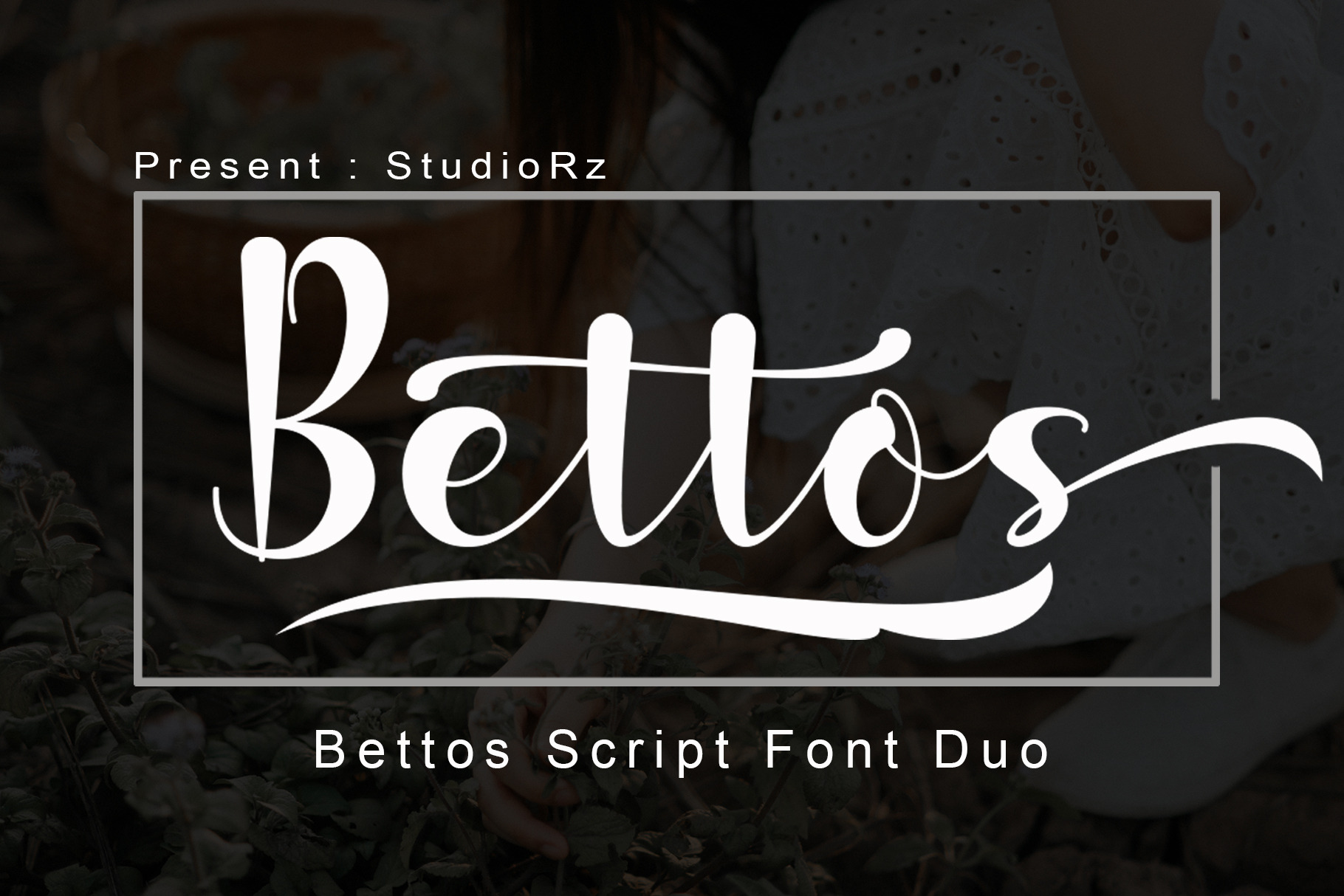
Bettos Font Duo
Bettos Script Font Duo
Bettos Scripts are duo fonts of Bettos OutLine and Bettos regular stylish calligraphy that have a varied base OutLine, fine lines, classic and elegant touches. Can be used for various purposes. Such as title, signature, logo, wedding invitation, t-shirt, letterhead, nameplate, label, news, poster, badge etc.